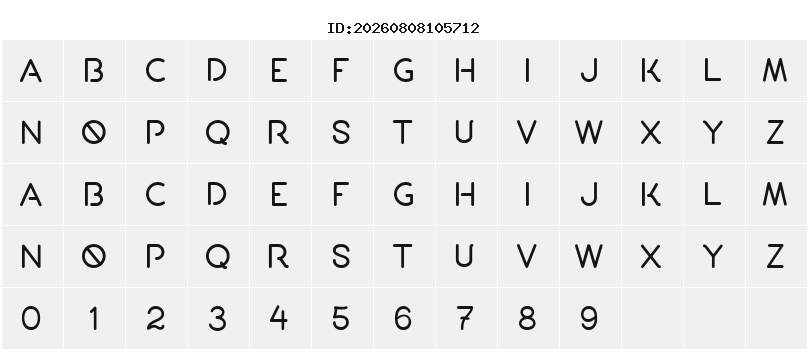
• Font Name: Porto 400
• Full Font Name: Porto
• Designer: Pedro Lobo
About Porto 400.ttf
Porto 400.ttf is a modern, elegant sans-serif font designed for ultimate readability and visual harmony. Perfect for branding, headlines, web design, and print materials.